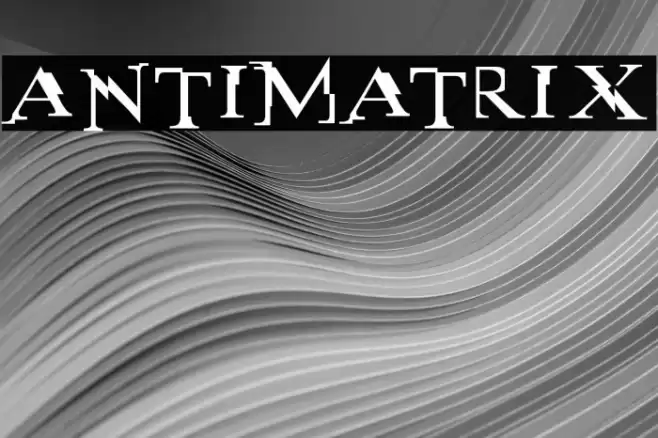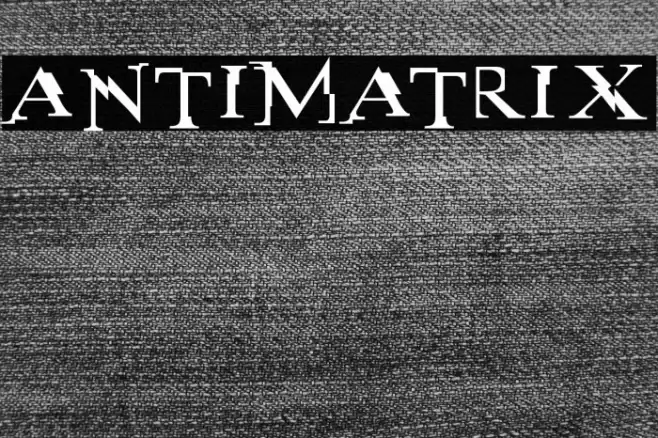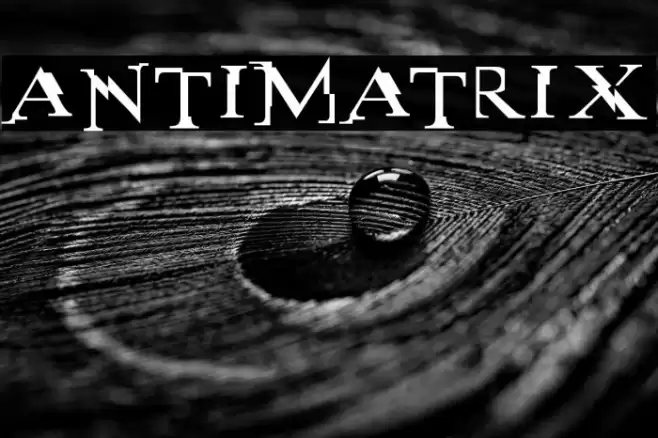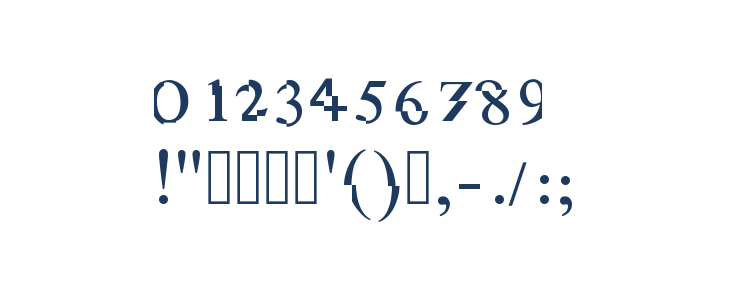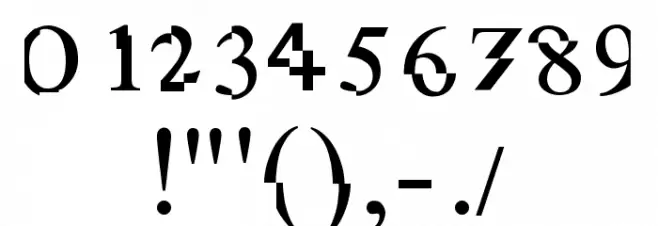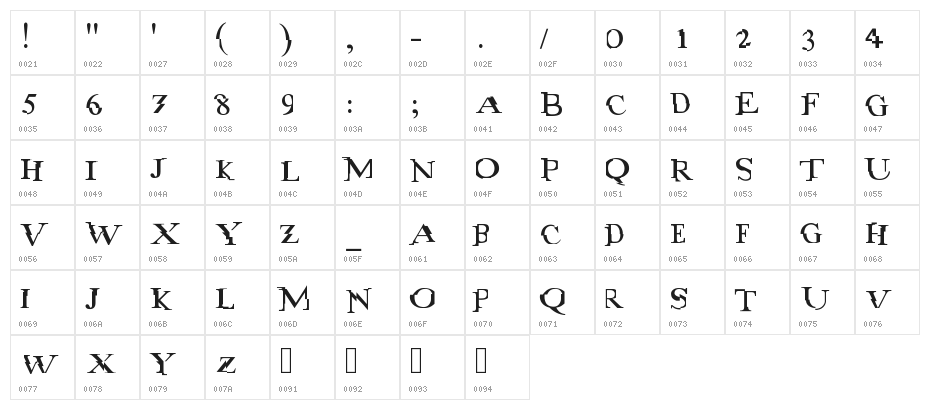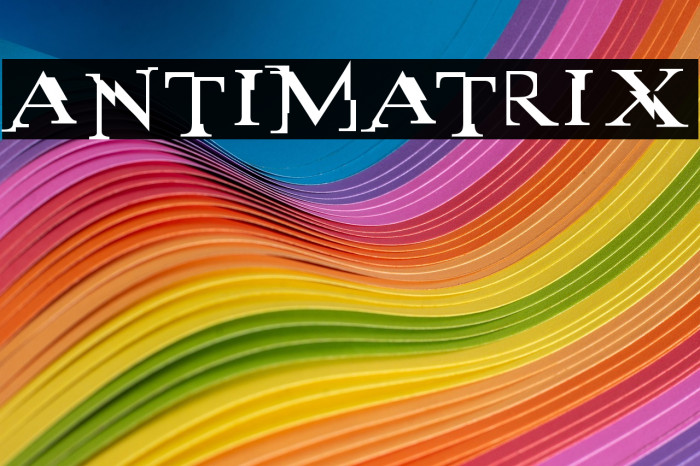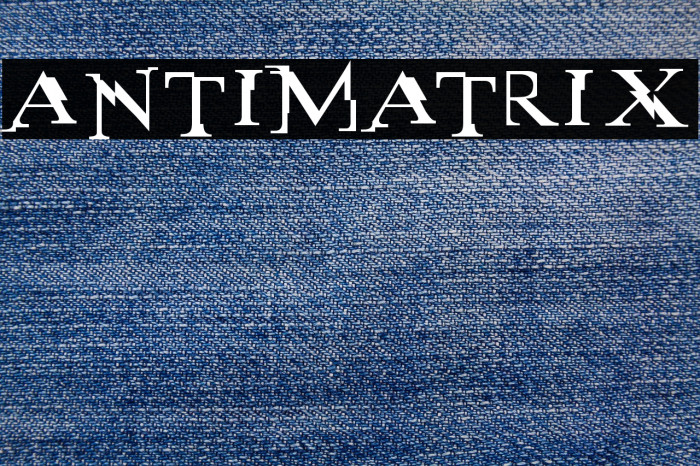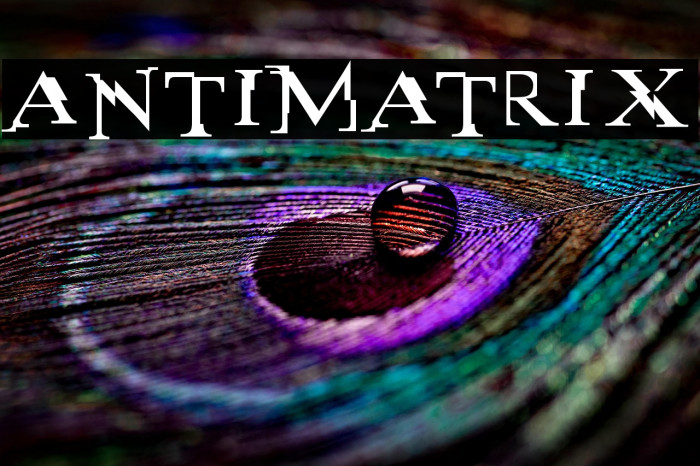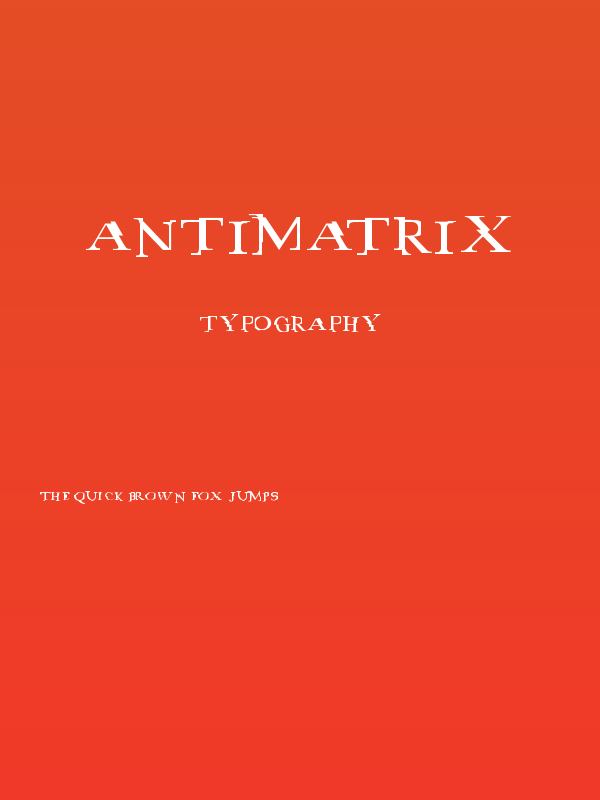
antimatrix Font
antimatrix Description
This font features a bold and striking design with sharp, angular serifs and a distinct geometric influence. The uppercase letters are particularly prominent, with a strong presence and unique cuts that give them a modern, edgy feel. The lowercase letters maintain the same angular style, creating a cohesive look throughout the alphabet. Numbers and special characters are designed with the same attention to detail, ensuring consistency across all elements. The overall appearance is both modern and slightly aggressive, making it ideal for projects that require a bold statement.
A bold, angular serif font with a modern, edgy design from Uncategorized fonts.
- Proposed Projects: Ideal for branding, posters, and headlines that require a bold and modern look.